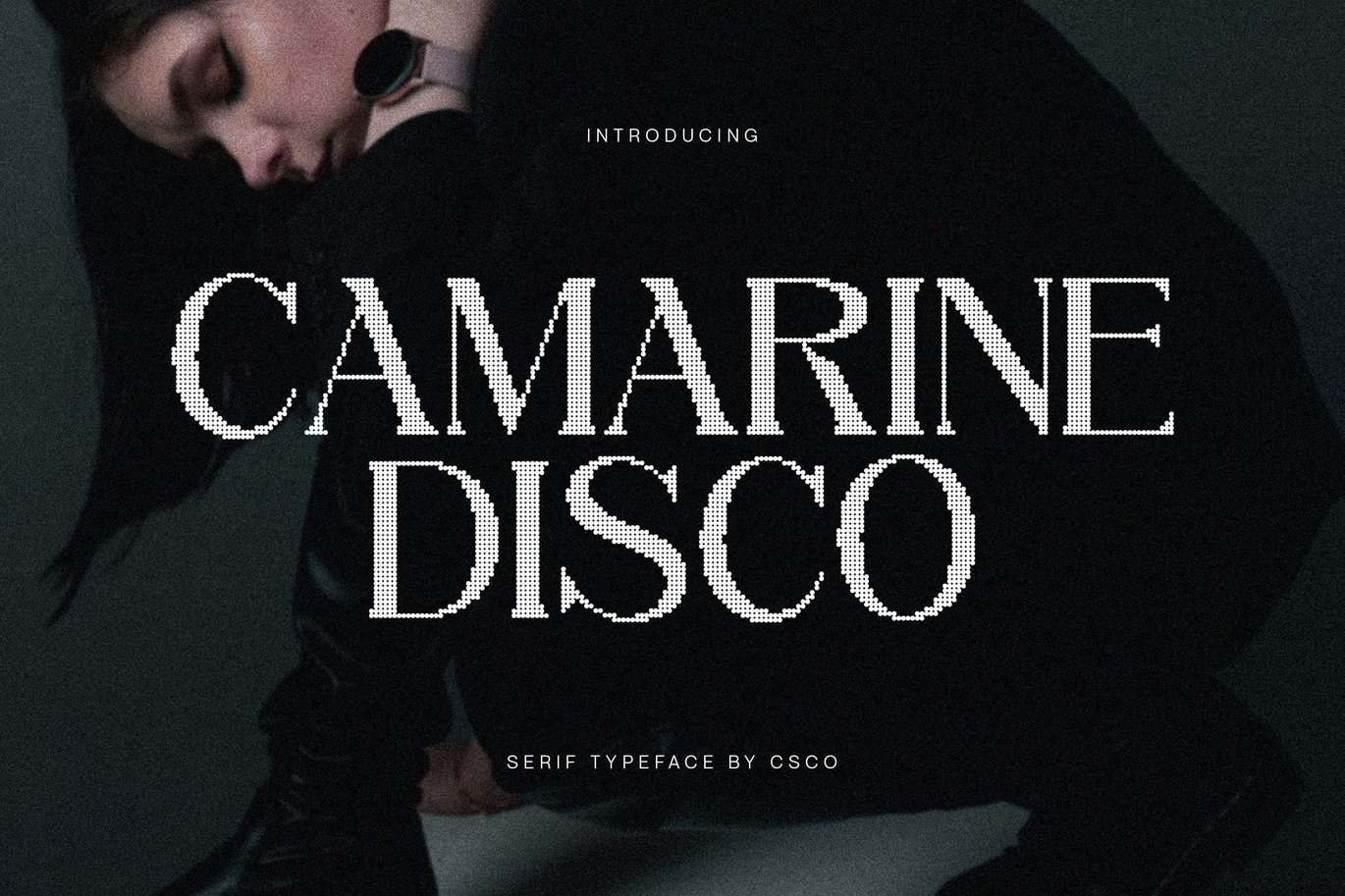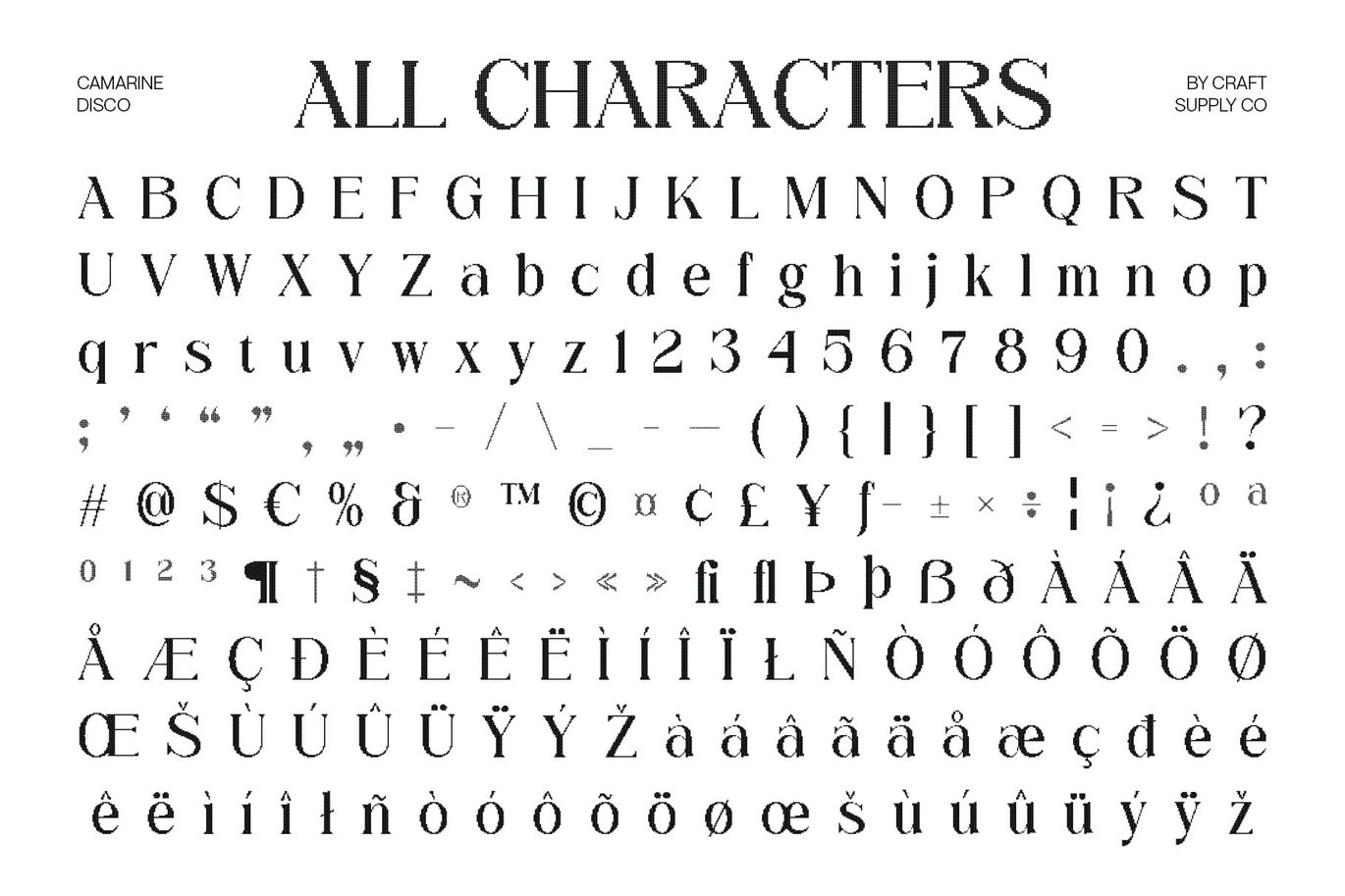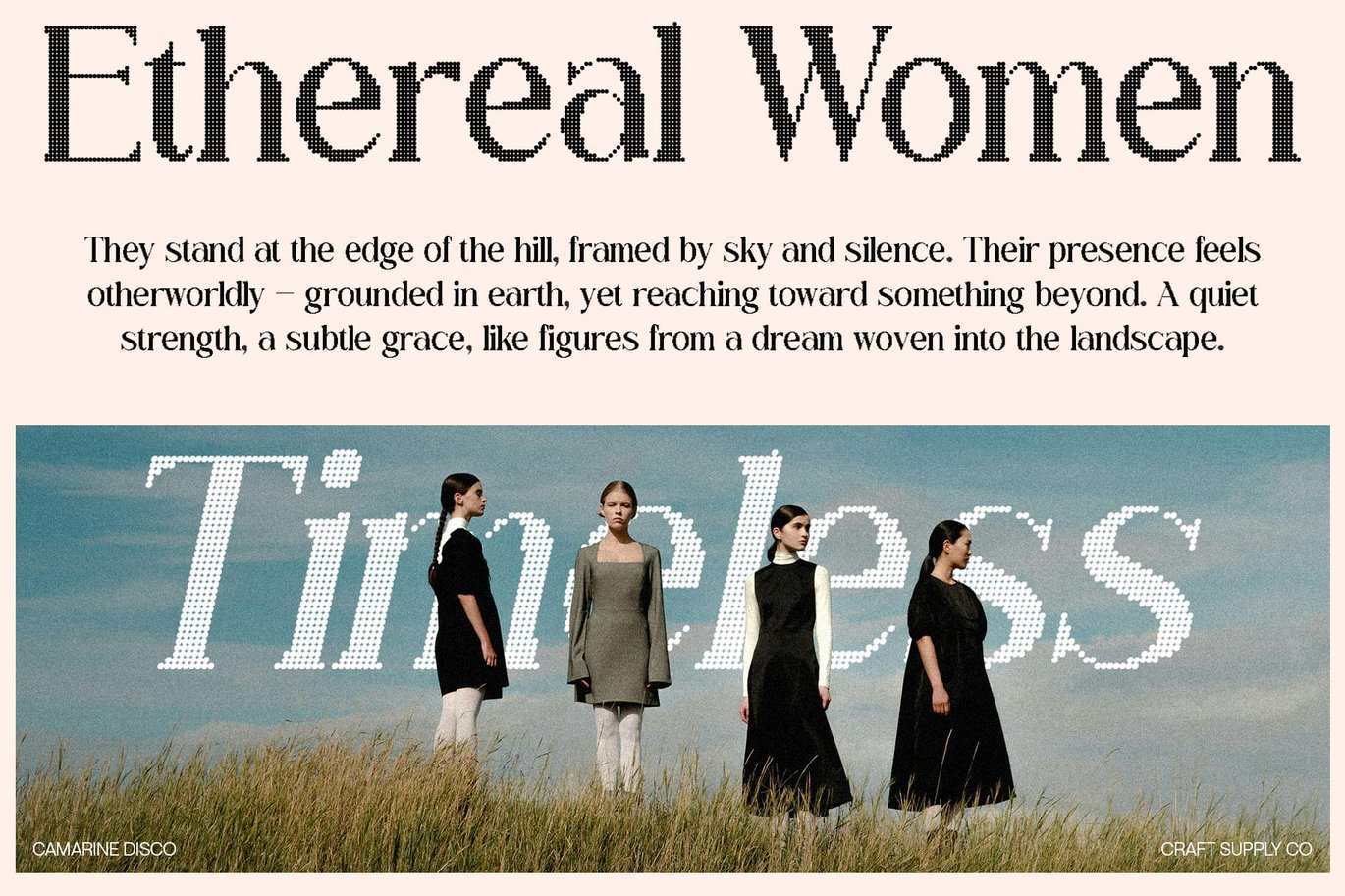
Camarine Disco Font
Camarine Disco Font is a versatile typeface ideal for various projects, including logos, branding, posters, blog headers, advertisements. The free version includes a full set of uppercase and lowercase letters, available in OTF format.